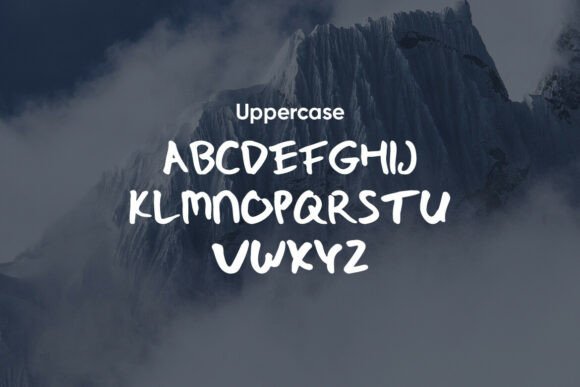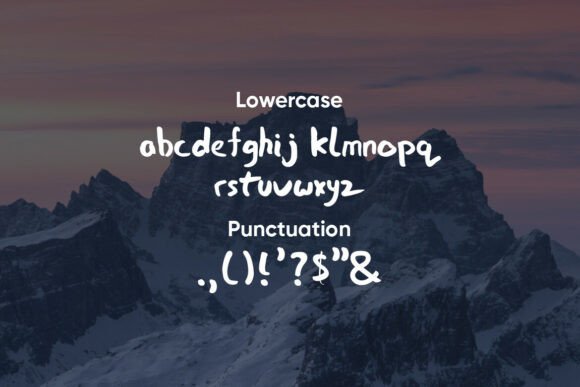
A Timeless Touch of Personality: Unveiling the Alistol Font
Imagine holding a pen, feeling the weight of it in your hand, and letting your thoughts flow onto the page. The sound of the nib gliding across the paper, the soft scratch of the ink, and the gentle curve of the letters – it’s a sensory experience that’s hard to replicate with digital tools. But what if you could capture that essence of natural penmanship in your designs? Enter the Alistol Font, a charming and elegant handwritten font that brings a personal touch to any project.
Whether you’re a designer, artist, or simply someone who appreciates the beauty of handwritten text, the Alistol Font is a valuable asset in your creative toolbox. Its smooth curves and fluid strokes evoke a sense of authenticity and emotional depth, making it perfect for a wide range of applications, from wedding invitations to product packaging.
Alistol Font Key Features
- Unique Characteristic: Alistol Font features a unique, hand-drawn aesthetic with subtle flair and organic feel, making it suitable for creative and artistic projects.
- Font Style: Alistol Font is available in a single font style, but it offers a range of weights, from Light to Bold, allowing designers to achieve the desired level of emphasis and contrast.
- Language Support: The font supports a wide range of languages, including Latin, Cyrillic, and Greek alphabets, making it suitable for international and multilingual projects.
Alistol Font Review
As a designer, I was excited to dive into Alistol Font and see what it had to offer. I’ve worked with a lot of different fonts in my time, but Alistol has some unique qualities that make it stand out.
- Unique flair: Alistol has a quirky, hand-drawn feel that’s perfect for adding some personality to a design.
- Legibility: Despite its playful appearance, Alistol is surprisingly easy to read, even at small font sizes.
- Flexibility: Alistol comes in a range of weights and styles, making it easy to find the perfect fit for your project.
- Overuse potential: Alistol’s playful vibe can be a bit overwhelming if used too extensively.
- Not ideal for body text: While Alistol is legible, it’s not the most efficient choice for large blocks of text.
- Not scalable: Alistol can look a bit rough when scaled up to larger font sizes.
Overall, I think Alistol is a great choice for designers who want to add a bit of whimsy to their work. Just be mindful of the limitations, and you’ll be golden!
Tips for Getting the Most Out of Alistol Font
For best results, use Alistol font in headings and titles, as it is a bold and elegant font.
Experiment with different font sizes and styles to achieve the desired look.
Alistol font is ideal for:
Headings and titles
Corporate reports and presentations
Alternatives to Alistol Font
Bebas Neue is a modern sans-serif font ideal for use in logos, titles, and headings. It has a unique, geometric feel that makes it perfect for creating a bold and eye-catching design. When to use: Use Bebas Neue for logos, titles, and headings where you want to create a strong, modern look.
Comparison to Alistol Font: Bebas Neue has a more geometric and modern feel compared to Alistol Font, which has a more elegant and refined look.
Montserrat is a sans-serif font designed for use in urban environments. It has a clean and modern look that makes it perfect for use in digital products and websites. When to use: Use Montserrat for digital products, websites, and apps where you want to create a clean and modern look.
Yes, Alistol Font is designed to be highly legible even at small text sizes. Its clear and open design ensures that characters remain readable and distinguishable, making it an excellent choice for digital interfaces, mobile apps, and other applications where text sizes are limited.